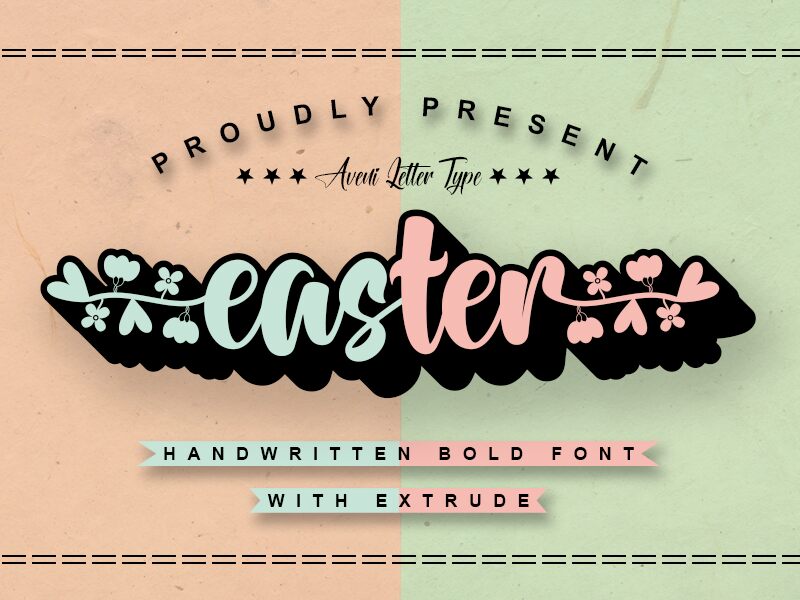
Easter Bold
Easter font by Aveni Letter Type is a free brush typeface with an elegant and fluid design. The font features modern script characters and a smooth flow of lines, thus offering an expressive look to its users. The gentle curves of the characters add to its contemporary appeal which makes Easter attractive in short or long body texts.